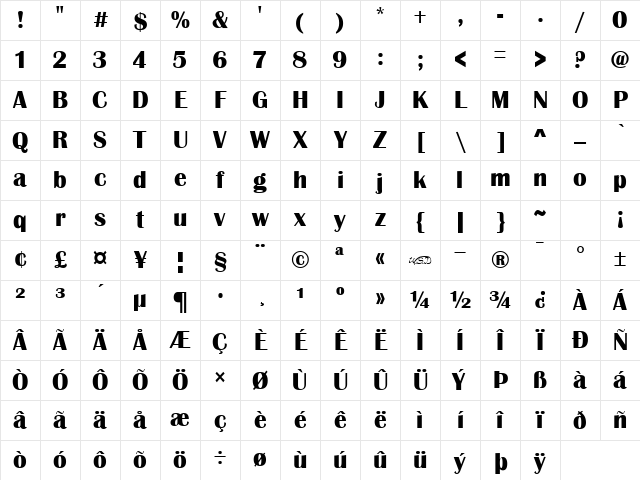
Scotsdale Regular
Design Context for Scotsdale
Scotsdale is a composed and adaptable typeface that performs quietly and consistently across a wide range of design contexts.
Pro Tip: Use Scotsdale in both headline and body roles to test its range before committing to a single application.